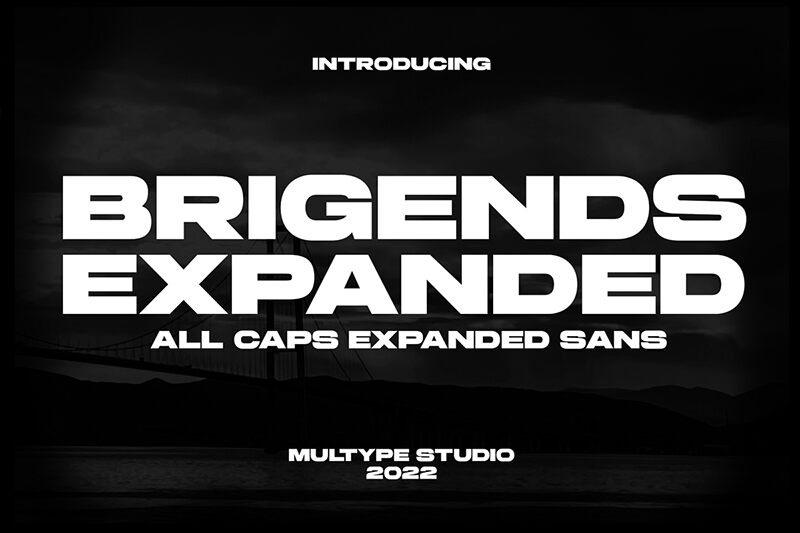
Brigends Expanded font from the Brigends family by Multype Studio is a remarkable sans serif designed to make an impact. This bold and expanded font exudes strength and modernity, featuring a clean, sleek aesthetic that stands out in any context. Its expansive letterform offers a commanding presence, ideal for creating striking headlines, logos, or brand identities.
With its free font availability for download, Brigends Expanded invites both professional designers and enthusiasts to explore its versatility. Perfectly suited for projects that demand attention-grabbing typography, this font emphasizes readability while delivering a contemporary edge. Whether you're crafting digital content or print designs, Brigends Expanded ensures your message isn't just seen-it's remembered.